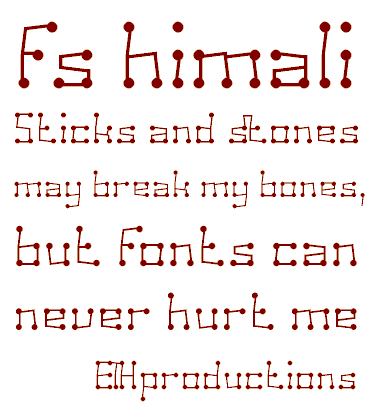
fs himali
An experiment with sticks and stones. Thanks and enjoy! :)
Avatar font. Very cute.
I like that ring on accents.
very nice!
Love it! 10/10
Very nice. 10/10
Great, each glyph a constellation. The night sky must be full of stories. The st-ligature is excellent.
Awesome!
AAaaaw. Flawless!
I want to pet this, like a cute dog :)
Excellent...this is really great. :)
I like it.
I like it even more because it is done at such small scale.
Sticks and stones may break my bones...
@thalamic: Thanks! I believe this is one of my most successful small grid experiments.
My favorite font on fontstruct